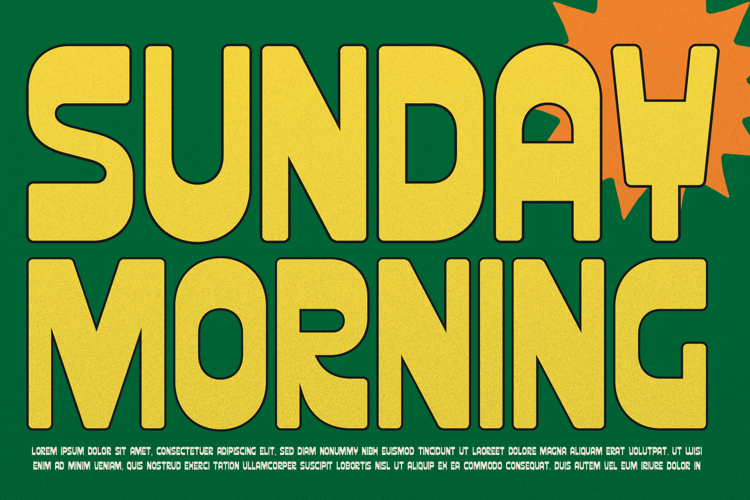
Mereum Dreamy Font
Mereum Dreamy | Bold Retro Typeface, is suitable for any projects such as: logos, branding projects, homeware designs, product packaging, mugs, quotes, posters, shopping bags, t-shirts, book covers, name card, invitation cards, greeting cards, label, photography, watermark, special events, and all your other lovely projects that need a Retro Typeface taste.